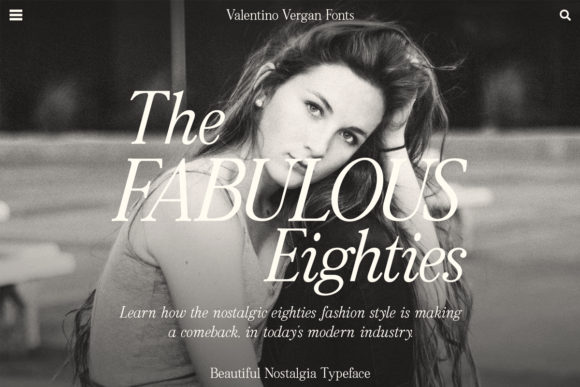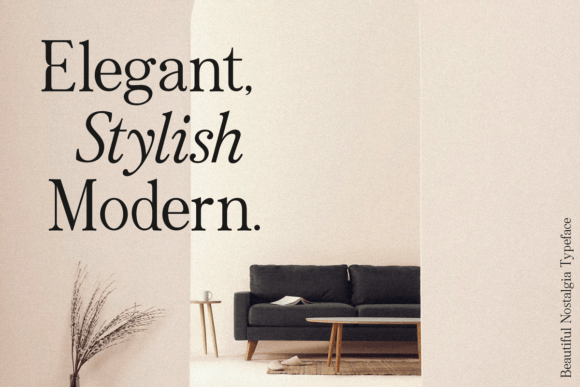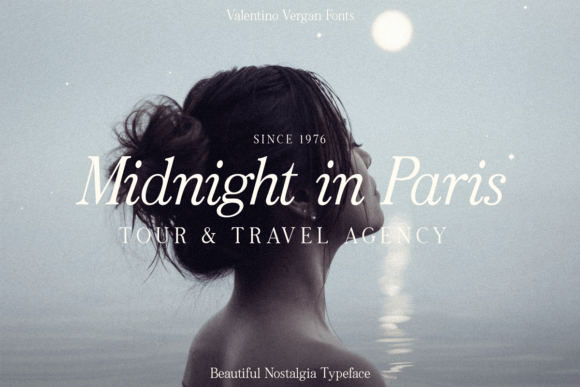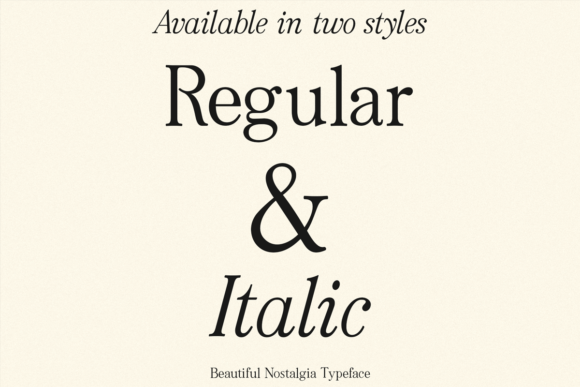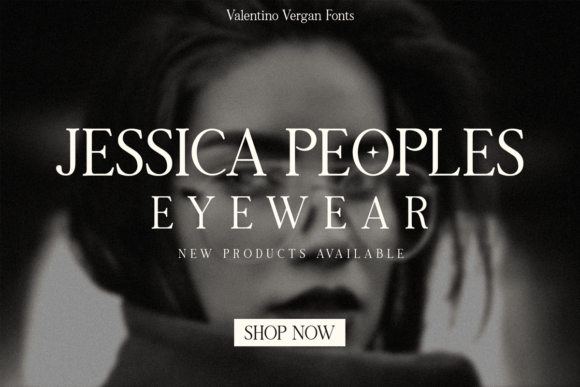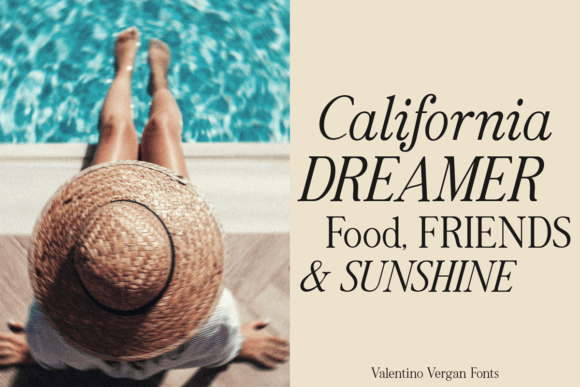
Introducing Beautiful Nostalgia Font: A Timeless Elegance for Modern Designs
Are you a designer or craft looking for a font that exudes elegance, sophistication, and a touch of nostalgia? Look no further than the Beautiful Nostalgia font. This stunning typeface is a perfect blend of vintage charm and modern flair, making it an ideal choice for a wide range of design projects. In this article, we’ll dive into the world of Beautiful Nostalgia, exploring its unique features, benefits, and uses.
A Perfect Blend of Old and New
Beautiful Nostalgia is an elegant resto-inspired serif font that combines the best of both worlds – a nostalgic vintage look with a modern twist. The result is a unique and trendy typeface that’s perfect for designers and crafters looking to add a touch of sophistication to their work. The font comes with a complementary italic version, which adds an extra layer of versatility to its already impressive feature set.
Key Features of Beautiful Nostalgia Font
• Elegant Serif Design: Beautiful Nostalgia boasts a classic serif design that’s reminiscent of traditional printing. Its elegant lines and curves make it perfect for headlines, editorials, and other high-end designs.
• Complementary Italic Version: The font comes with a beautiful italic version that adds a touch of sophistication and elegance to any design.
• Vintage Charm with a Modern Twist: Beautiful Nostalgia seamlessly blends vintage charm with modern flair, making it perfect for designers looking to create unique and eye-catching designs.
• Scalable Design: The font is designed to look great in both large and small settings, making it perfect for headlines, editorials, and body text.
Benefits of Using Beautiful Nostalgia Font
So, why choose Beautiful Nostalgia font for your next design project? Here are just a few benefits of using this stunning typeface:
• Unique and Eye-Catching Designs: Beautiful Nostalgia’s unique blend of vintage charm and modern flair makes it perfect for creating eye-catching designs that stand out from the crowd.
• Versatility: The font’s scalable design and complementary italic version make it perfect for a wide range of design projects, from headlines and editorials to body text and more.
• Elegance and Sophistication: Beautiful Nostalgia exudes elegance and sophistication, making it perfect for high-end designs, luxury brands, and more.
Uses of Beautiful Nostalgia Font
Beautiful Nostalgia font is perfect for a wide range of design projects, including:
• Headlines and Editorials: The font’s elegant serif design and scalable features make it perfect for headlines and editorials.
• Branding and Logo Design: Beautiful Nostalgia’s unique blend of vintage charm and modern flair makes it perfect for creating unique and eye-catching logos and brand identities.
• Packaging Design: The font’s elegant design and versatility make it perfect for packaging design, including labels, tags, and more.
• Web Design: Beautiful Nostalgia font is perfect for web design, including website headers, body text, and more.
In conclusion, Beautiful Nostalgia font is a stunning typeface that offers a unique blend of vintage charm and modern flair. Its elegant serif design, complementary italic version, and scalable features make it perfect for a wide range of design projects. Whether you’re a designer or craft looking to add a touch of elegance and sophistication to your work, Beautiful Nostalgia font is an excellent choice. So why wait? Download Beautiful Nostalgia font today and take your designs to the next level!